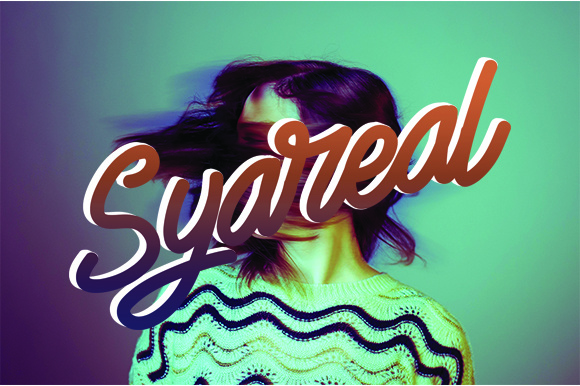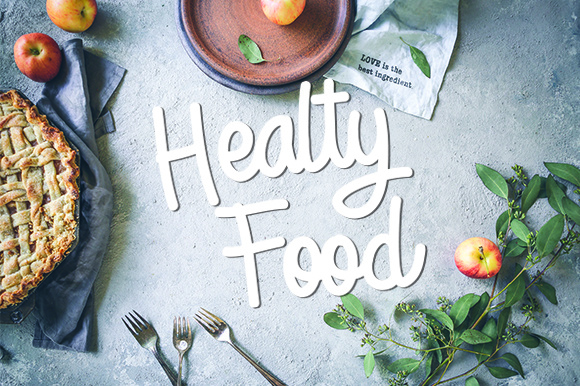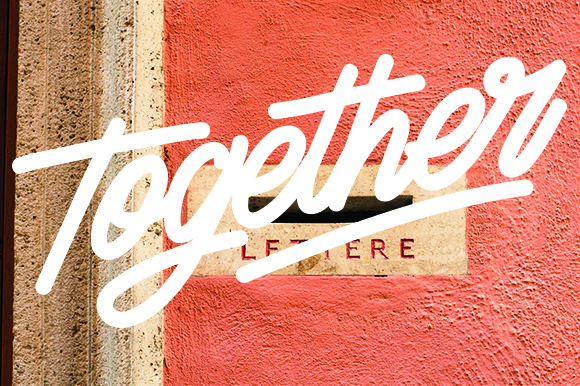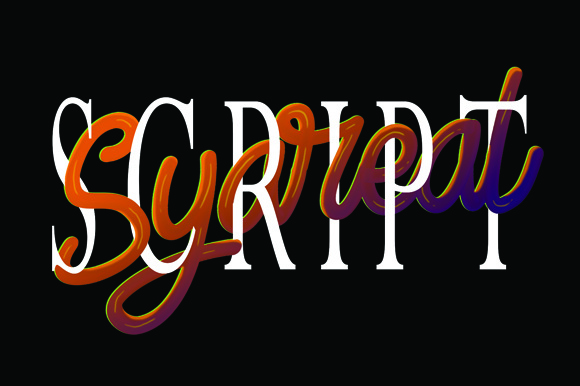
Syareal Font
About Syareal Font
Syareal has a touch of manual writing that gives the impression of a little strength but will also give a elegant feel to your design. Syareal is the perfect companion to create strong and wild feelings for your creative project. Just play with uppercase and lowercase letters to make perfect words!